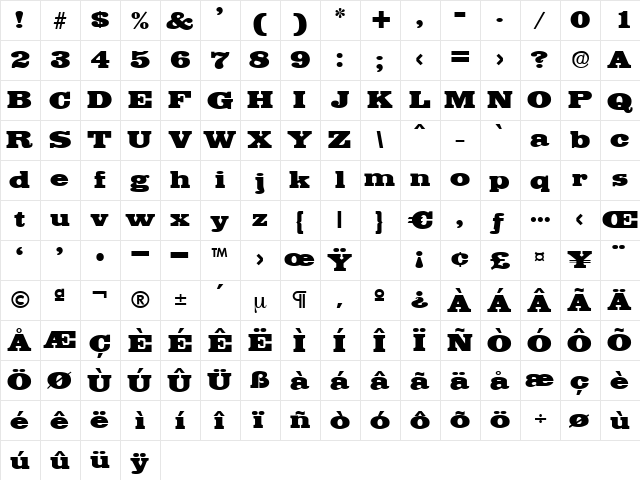
Iraklion Regular
Design Context for Iraklion Typeface
Iraklion offers clean, dependable letterforms without strong stylistic allegiance, making it a practical choice for designers who need flexibility.
Pro Tip: Use Iraklion in both headline and body roles to test its range before committing to a single application.